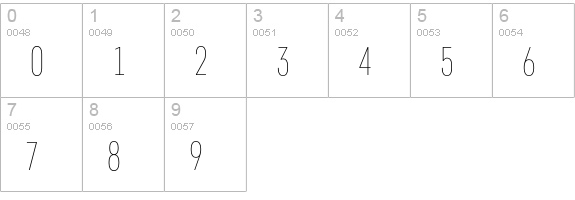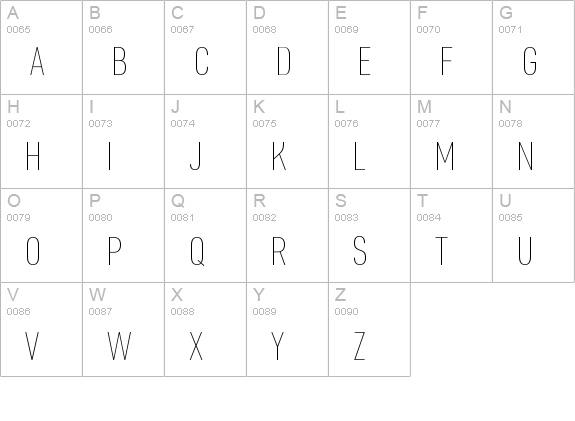
Core Sans D 17 Cn Thin Font Details
Core Sans D 17 Cn Thin is a delicate, low-contrast variant in the Core typeface family \xE2\x80\x94 well suited to fashion editorial, minimal branding, and high-contrast display.
Core Sans D 17 Cn Thin font is a sleek and elegant typeface that exudes modernity and sophistication. Its thin weight and condensed design make it perfect for creating a clean and minimalist look in any design project. The tall x-height and subtle geometric shapes give this font a contemporary feel, making it ideal for headlines, branding, and editorial design. What's even better is that Core Sans D 17 Cn Thin font is available for free download at FontsMarket.com. This means you can easily access and use this high-quality font for your personal and commercial projects without any cost. Don't miss out on this opportunity to elevate your designs with the stylish and versatile Core Sans D 17 Cn Thin font.